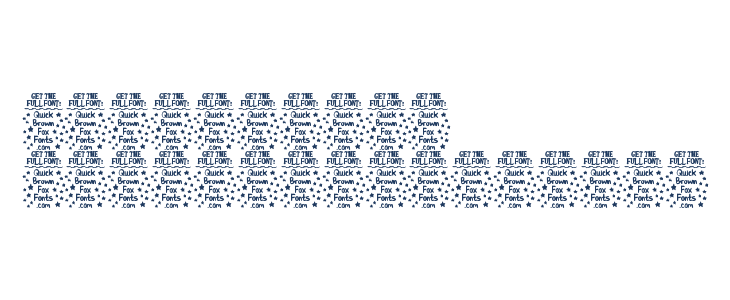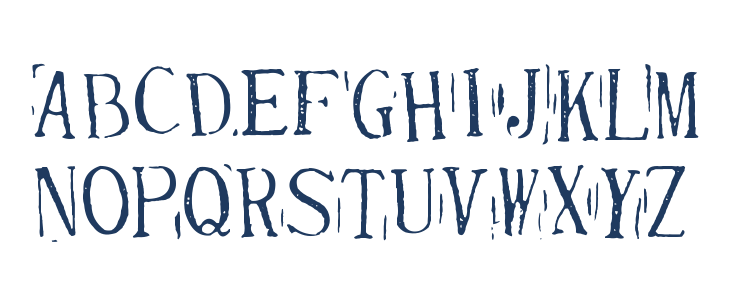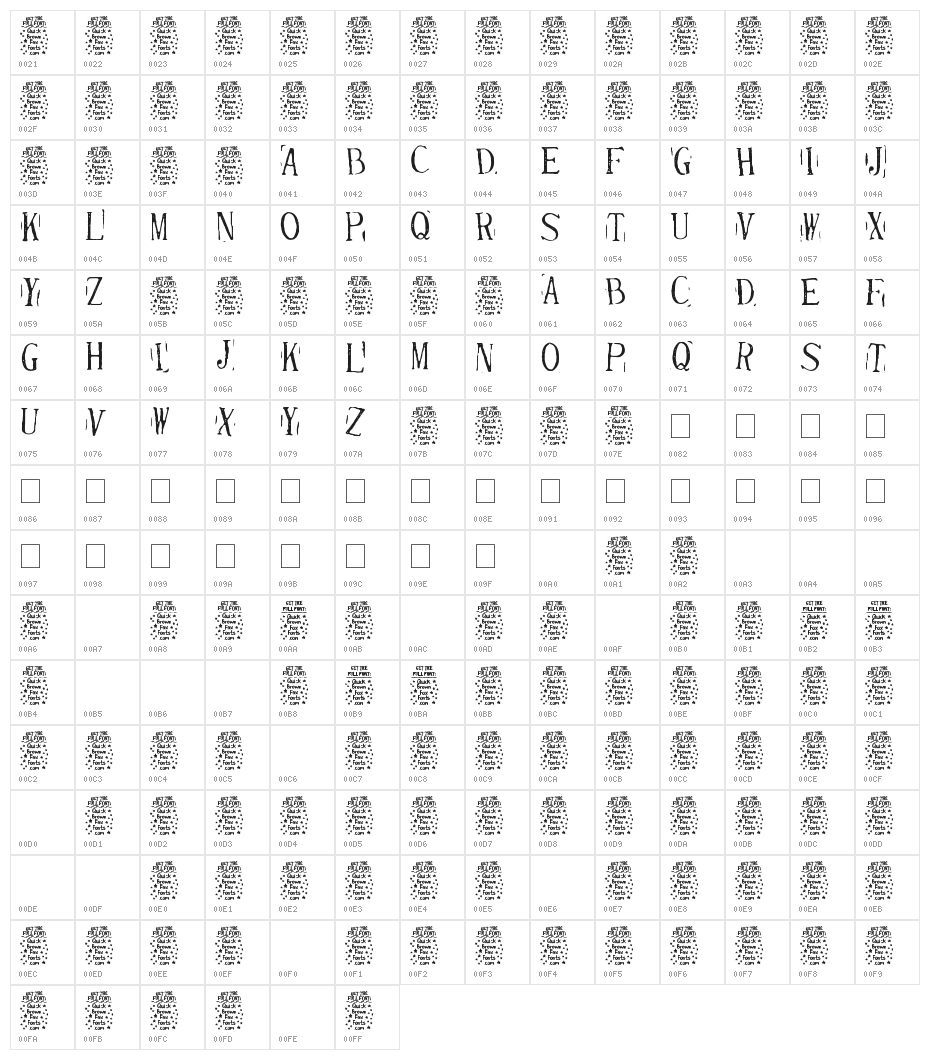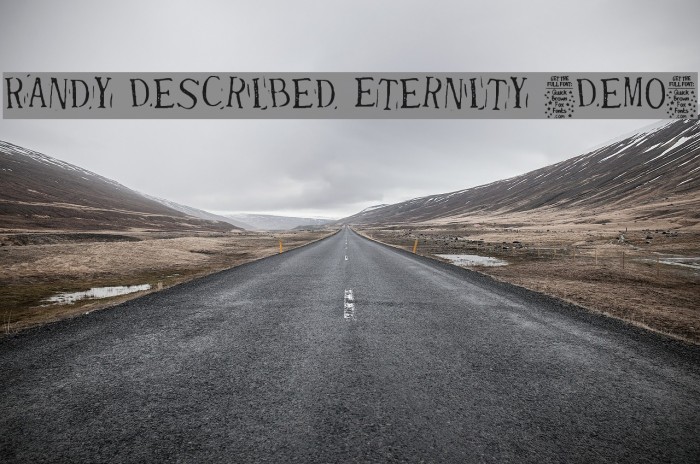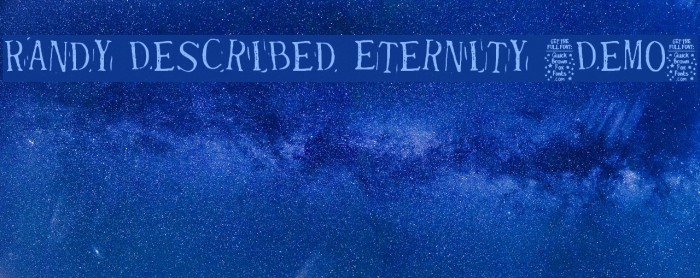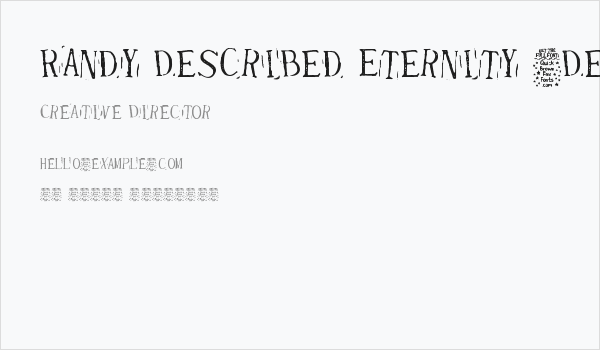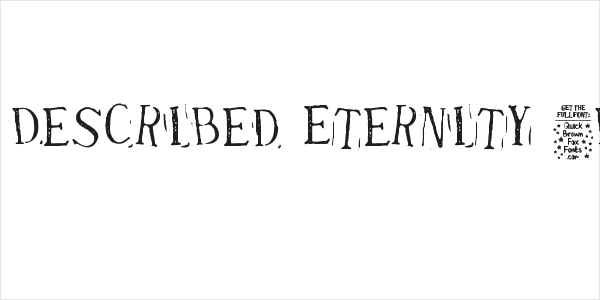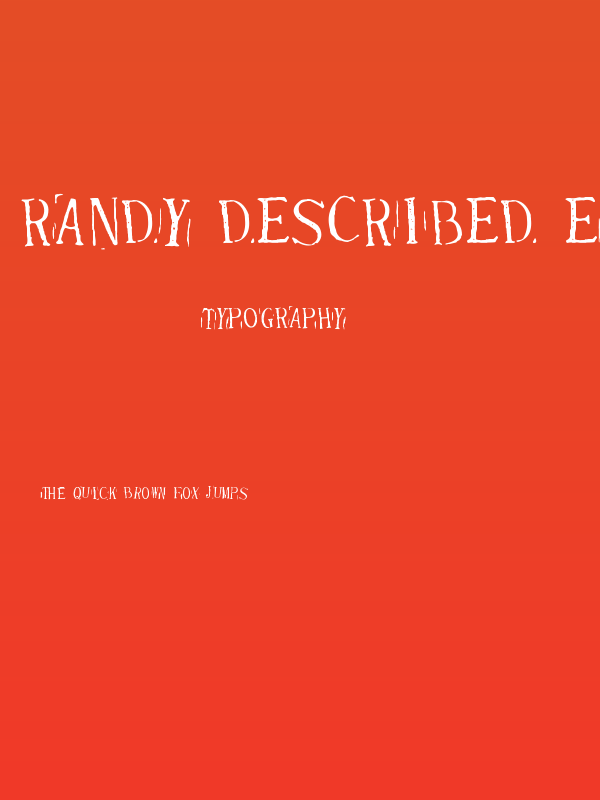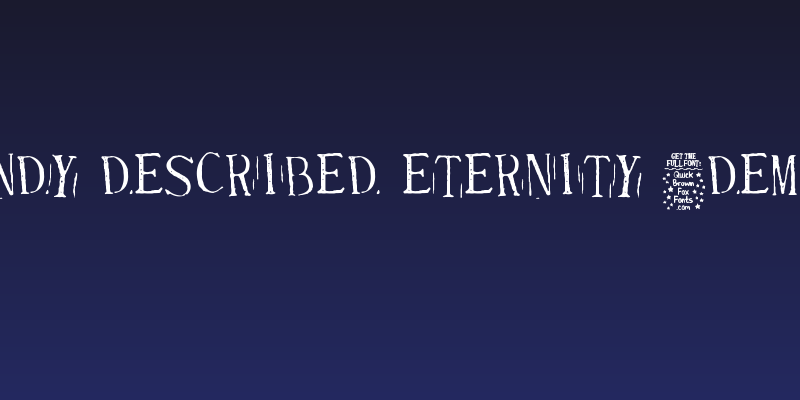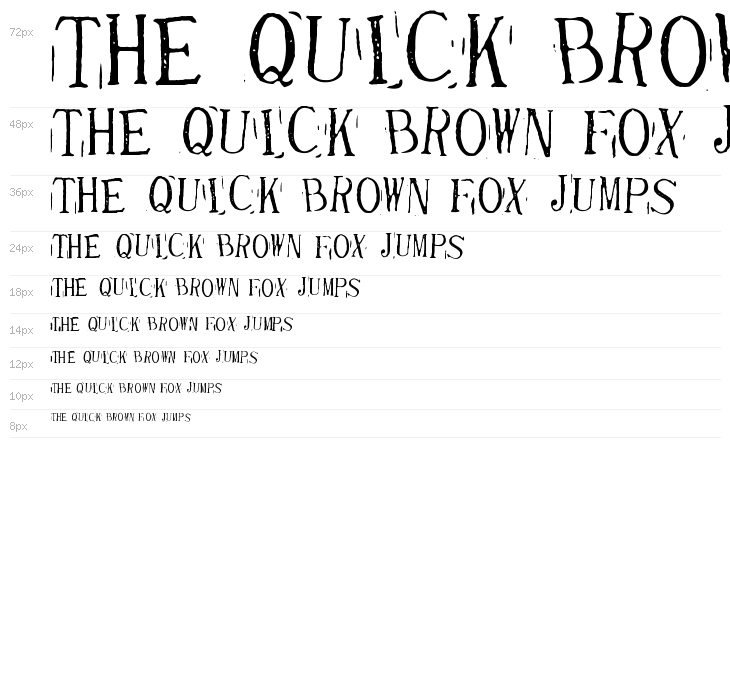
Randy Described Eternity [Demo] Font
Randy Described Eternity [Demo] Description
This font features a distressed, grunge style with uneven edges and a hand-drawn appearance. The uppercase letters are tall and narrow, with varying stroke thickness that gives a dynamic and energetic feel. The lowercase letters maintain the same distressed aesthetic, adding a sense of movement and texture. The numbers and special characters follow the same design principles, ensuring consistency across all characters. This font's unique style makes it stand out, ideal for projects that require a bold and artistic touch.
Proposed ProjectsIdeal for music album covers, posters, and artistic branding projects that require a bold, edgy aesthetic.